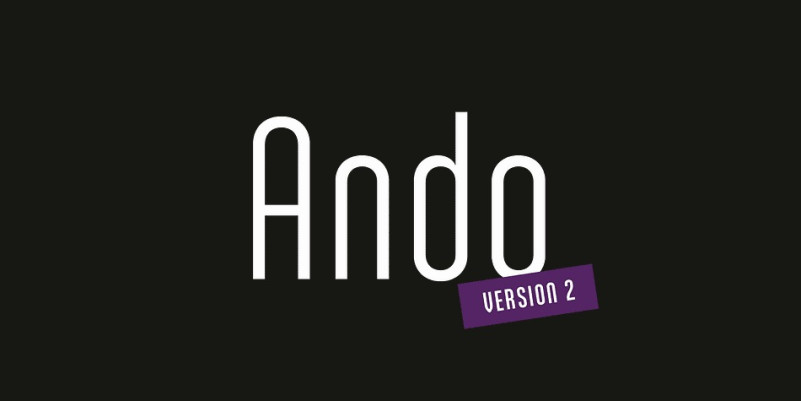
Ando Font
Ando Sans Serif Font is a condensed sans serif typeface available in seven styles. Built on a simple geometric structure, this family packs a lot of elegance with its super smooth curves and unique details. Designed for headlines, Ando really shines when used big, specially in the lighter weights.
Initially released in 2011, the family was extended and updated in 2020. OpenType features include standard and discretionary ligatures, stylistic alternates, tabular figures, localized forms, case-sensitive punctuation, and more.